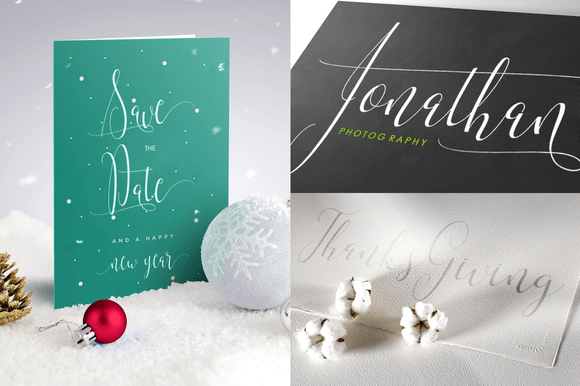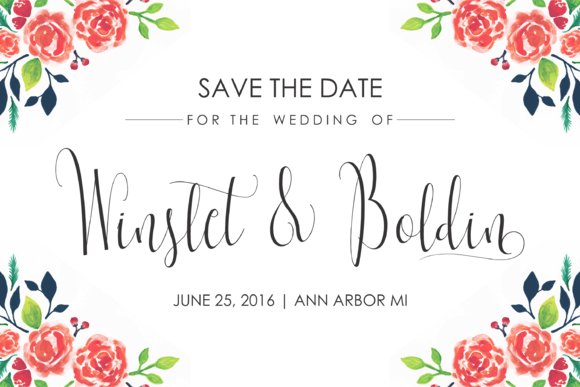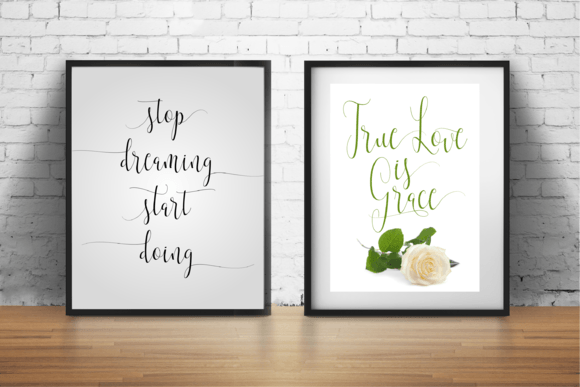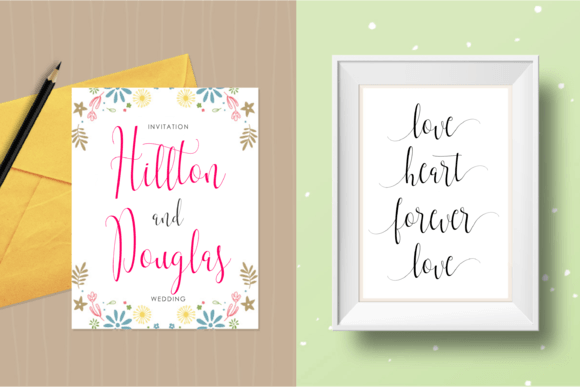
Introduction to Sitimerry Font
Have you ever been working on a creative project, pouring your heart and soul into every detail, only to feel like something’s missing? That’s when I discovered the Sitimerry Font, and it completely transformed my design process. This stunning modern calligraphy typeface is not just a pretty face; it’s a game-changer for designers looking to elevate their work.
With its smooth, soft shape and thin, beautiful lines, the Sitimerry Font is the perfect addition to any design resource. Whether you’re creating gift cards, wedding invitations, branding materials, or posters, this font is sure to make your work stand out. And the best part? It’s available for free download, complete with a transparent background, making it easy to incorporate into your designs.
Key Features of Sitimerry Font
- High-quality design resource for creative projects, perfect for graphic designers and artists.
- Unique, hand-drawn style with a transparent background, allowing for flexibility in design composition.
- Perfect for projects requiring a touch of elegance and sophistication, making it an ideal design resource for various creative projects.
Honest Review: Sitimerry Font
I recently came across the Sitimerry Font and was excited to give it a try for my next creative project. As a designer, I’m always on the lookout for high-quality design resources to elevate my work.
The Sitimerry Font is a free download that offers a lot of flexibility and versatility. ✨ One of the things that stood out to me was the transparent background option, which makes it perfect for use on digital screens or as a background element in a design.
Here are some of the key features that I appreciated:
- High-quality vector graphics that scale well
- Customizable font styles and weights
- Transparent background option for added flexibility
However, there are a few limitations to keep in mind: ⚠️ The font is not as comprehensive as some of the paid options on the market, and the character set is limited to basic Latin characters.
Overall, I was impressed with the Sitimerry Font and would recommend it for any designers working on a budget or looking for a high-quality free design resource. While it may not be the most comprehensive font out there, it’s a great addition to any design toolkit.
Tips for Getting the Most Out of Sitimerry Font
Use the Sitimerry Font in conjunction with a transparent background to create a high-quality design. Experiment with different font sizes and colors to achieve the desired effect. This font is ideal for creative projects that require a unique and eye-catching design resource.
The Sitimerry Font is commonly used in logo designs, social media graphics, and marketing materials. Its high-quality design and transparent background make it an ideal choice for designers who want to create professional-looking designs quickly and easily.